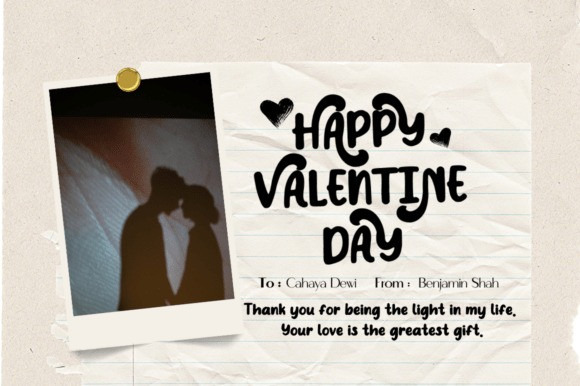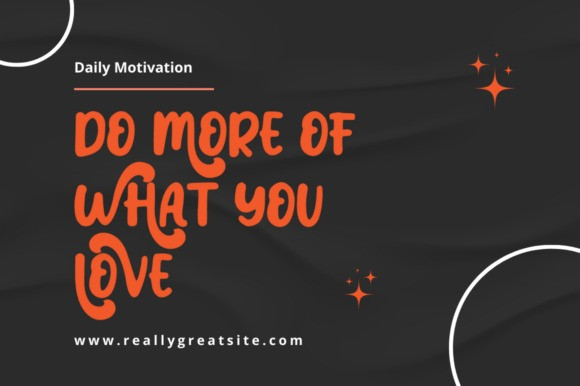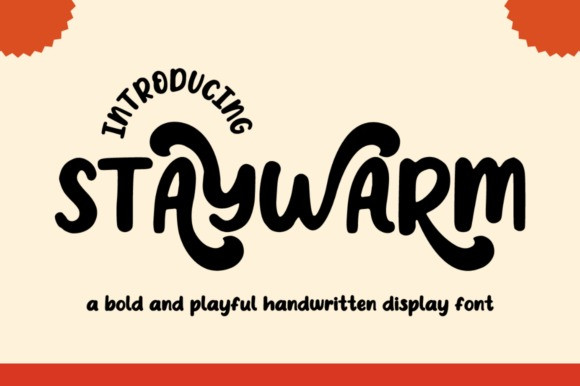
Stay Warm Display Font
Stay Warm Display Font is a bold and playful display font with thick, rounded strokes and smooth flowing curves. Its soft, friendly letterforms create a warm and inviting personality, making it perfect for eye-catching headlines and creative branding. The stylish swashes and curved terminals add a unique charm that helps your designs stand out effortlessly.
This font works beautifully for logos, packaging, posters, social media graphics, quotes, t-shirt designs, stickers, invitations, and craft projects. Whether you’re creating modern branding materials or fun merchandise, Stay Warm delivers a cheerful, trendy, and memorable typographic style for both print and digital use.